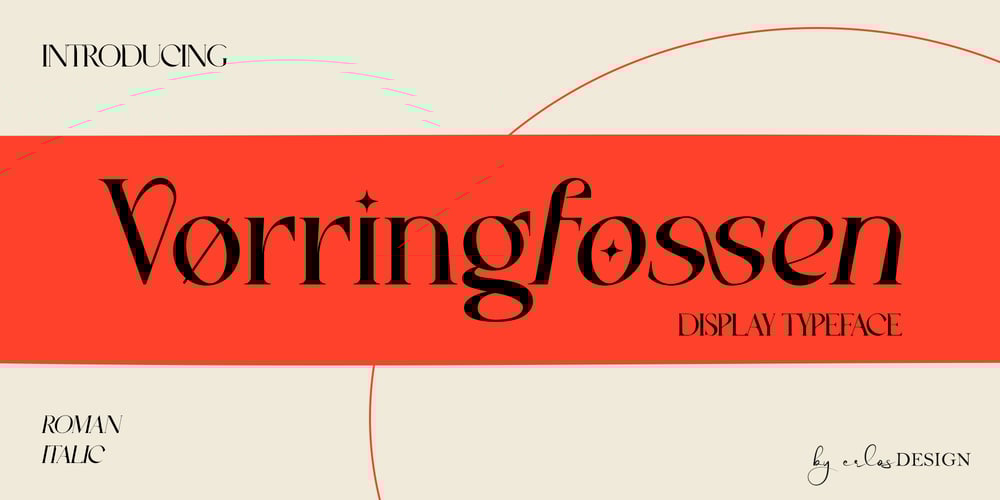
Vorringfossen Font Family was designed by Erlangga Suherman and published by ErlosDesign. Vorringfossen contains 2 styles and family package options. Vørringfossen is a elegant display serif typeface. This elegant typeface features custom ligatures and alternate characters that will help you create beautiful work .Add a sophisticated style to your designs with Vørringfossen . This font is perfect for logos, posters, web design, graphic quotes, album covers, branding, and more.